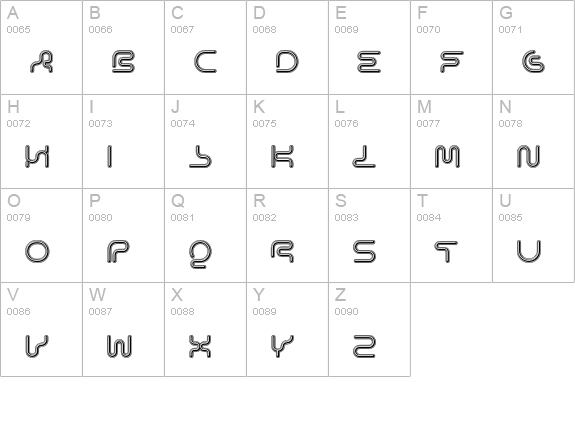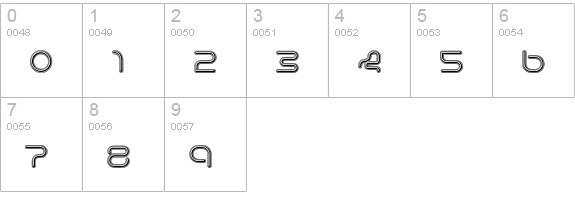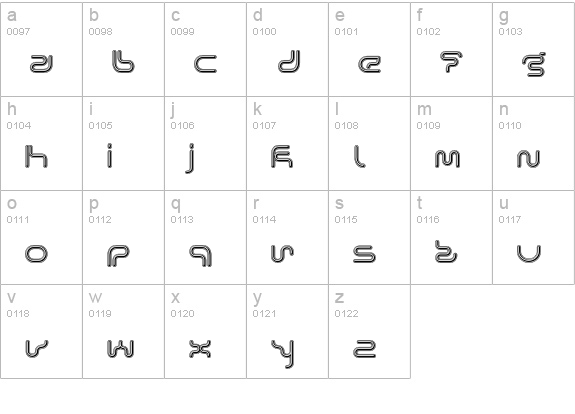
LexigraphB Font Details
Introducing LexigraphB, a beautifully crafted font that effortlessly blends elegance and modernity. This versatile typeface is perfect for any design project, whether it's a stylish logo, eye-catching poster, or a sleek website. With its clean lines and sophisticated curves, LexigraphB exudes a sense of professionalism and refinement. But what truly sets LexigraphB apart is its availability for free! Yes, you read that right. This stunning font can be downloaded at absolutely no cost on FontsMarket.com. We believe in making high-quality design accessible to all, and LexigraphB is our way of ensuring that everyone can have access to a top-notch typeface without breaking the bank. The attention to detail in LexigraphB is evident in every character, from the perfectly balanced letterforms to the subtle ligatures that add a touch of uniqueness to your designs. Its wide range of weights and styles allows for endless creative possibilities, ensuring that you can find the perfect fit for any project. Whether you're a seasoned designer or just starting out, LexigraphB is a must-have addition to your font collection. Its timeless appeal and versatility make it suitable for a wide range of applications, from branding and advertising to editorial and web design. So why wait? Experience the beauty and functionality of LexigraphB today by downloading it freely at FontsMarket.com. Elevate your designs with this remarkable font and see the difference it makes in capturing attention and leaving a lasting impression. Don't miss out on this incredible opportunity to enhance your creative projects with LexigraphB – the font that combines elegance, modernity, and affordability all in one.